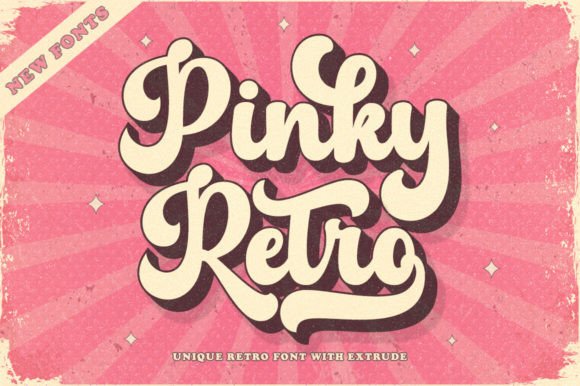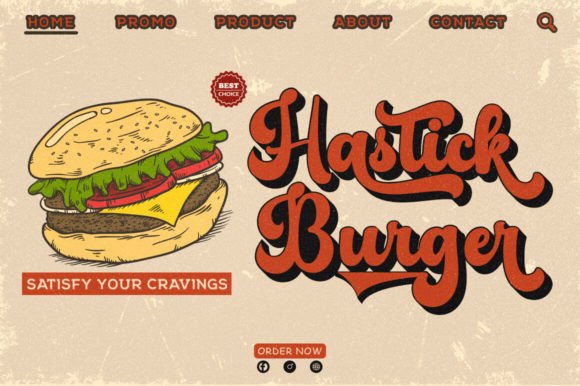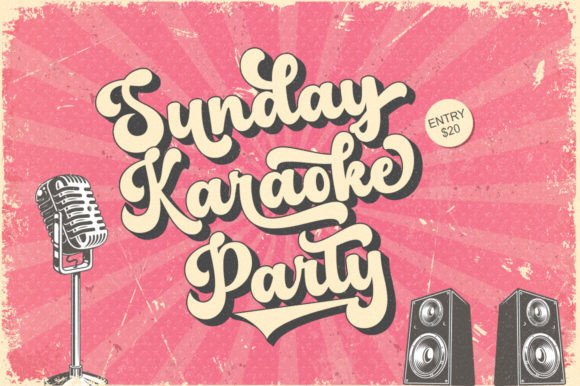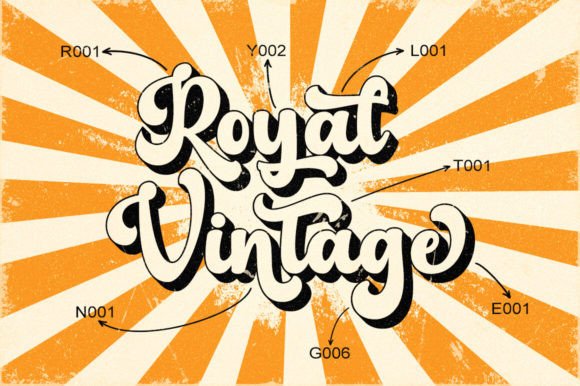
Pinky Retro Font: Groovy 60s Script for Bold Logo Design
About the Pinky Retro Font
Let us introduce you to Pinky Retro Font, where timeless design meets modern craftsmanship. Introducing, Pinky Retro, a bold retro script that will take you back to the 60s. This typeface has an extruded version so you can create a retro effect font easily. This font is very suitable for application, especially on logos, and various other formal forms such as invitations, labels, logos, magazines, books, greeting/wedding cards, packaging, fashion, make up, stationery, novels, labels or any type. advertising purposes.
Pinky Retro’s bold, playful energy makes it ideal for headlines, short text blocks on posters and packaging, and branding elements where a strong retro aesthetic is desired. It excels in applications requiring a touch of vintage charm, such as logos for boutiques, retro-themed events, or vintage-inspired product lines. However, its highly decorative nature makes it unsuitable for body text or UI elements where readability is paramount. Avoid using it for long paragraphs or in small sizes.
Pairing Pinky Retro effectively requires considering its strong personality. A clean sans-serif like Futura or a geometric sans-serif like Bebas Neue would provide a modern contrast and enhance readability when used alongside it in a design. For a warmer feel, a classic serif such as Garamond or a slightly more playful serif like Playfair Display could create a balanced and harmonious combination.
The font’s overall personality is best described as bold, playful, and undeniably retro. It evokes a sense of fun and nostalgia, perfectly suited for brands that wish to communicate a vibrant, vintage-inspired image. Its extruded version adds a further layer of retro charm, lending itself especially well to projects with a 60s or 70s aesthetic.
Pinky Retro Font Usage Examples